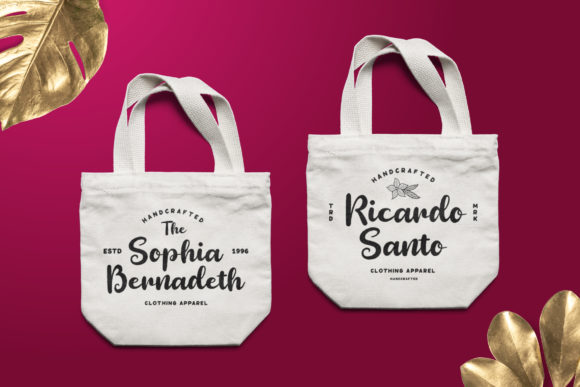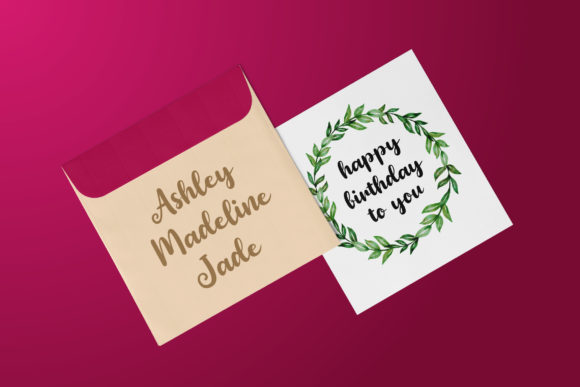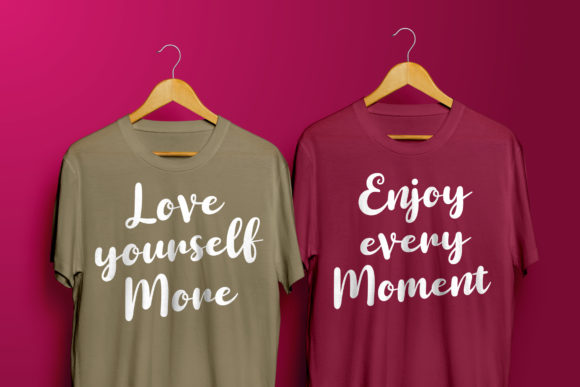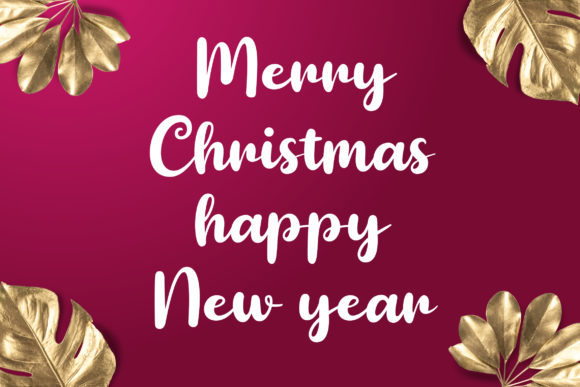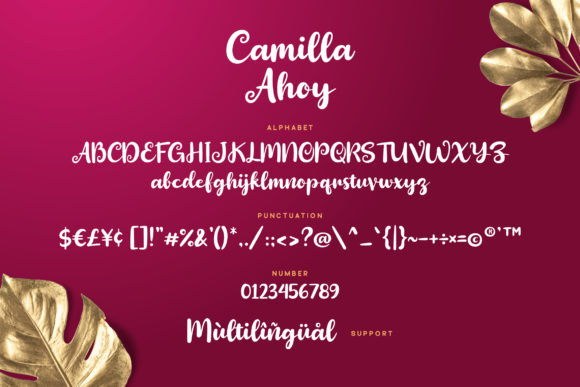
Introducing Camilla Ahoy Font: The Fun and Cool Handwritten Font You Need
Are you tired of using the same old fonts in your designs? Look no further! Camilla Ahoy is an equally fun and cool handwritten font with a unique style that’s sure to add a touch of personality to your projects. In this article, we’ll dive into the features and benefits of Camilla Ahoy Font, and explore how it can elevate your designs and crafting projects.
What is Camilla Ahoy Font?
Camilla Ahoy Font is a handwritten font designed to bring a sense of fun and playfulness to your designs. With its unique and quirky style, it’s perfect for creatives who want to add a personal touch to their work. Whether you’re a designer, crafter, or DIY enthusiast, Camilla Ahoy Font is a great addition to your font collection.
Key Features of Camilla Ahoy Font
- Handwritten style: Camilla Ahoy Font has a genuine handwritten look that’s perfect for creating personal and relatable designs.
- Unique and quirky: This font stands out from the crowd with its distinctive style that’s sure to grab attention.
- Fun and playful: Camilla Ahoy Font is designed to add a touch of whimsy and fun to your designs.
- Easy to read: Despite its playful style, Camilla Ahoy Font is easy to read and understand, making it perfect for body text and headings.
Benefits of Using Camilla Ahoy Font
So, why should you choose Camilla Ahoy Font for your designs? Here are just a few benefits:
- Adds personality to your designs: With Camilla Ahoy Font, you can add a touch of personality and whimsy to your designs, making them stand out from the crowd.
- Perfect for creative projects: Whether you’re working on a DIY project, crafting, or designing, Camilla Ahoy Font is a great choice for adding a personal touch.
- Versatile: This font can be used for a wide range of projects, from invitations and greeting cards to posters and social media graphics.
How to Use Camilla Ahoy Font
Using Camilla Ahoy Font is easy! Here are a few tips to get you started:
- Pair it with other fonts: Try pairing Camilla Ahoy Font with other fonts to create a unique and interesting contrast.
- Experiment with colors: Camilla Ahoy Font looks great in a range of colors, so don’t be afraid to experiment and find the perfect hue for your design.
- Use it for headings and titles: Camilla Ahoy Font is perfect for headings and titles, but you can also use it for body text for a more playful look.
Who is Camilla Ahoy Font for?
Camilla Ahoy Font is perfect for:
- Designers: If you’re a designer looking for a unique and playful font to add to your collection, Camilla Ahoy Font is a great choice.
- Crafters: Whether you’re into scrapbooking, card making, or other crafts, Camilla Ahoy Font is a great addition to your toolkit.
- DIY enthusiasts: If you love DIY projects and want to add a personal touch to your creations, Camilla Ahoy Font is a great choice.
In conclusion, Camilla Ahoy Font is a fun and cool handwritten font that’s perfect for designers, crafters, and DIY enthusiasts. With its unique style and easy-to-use format, it’s a great addition to any font collection. Whether you’re looking to add a touch of personality to your designs or create something truly unique, Camilla Ahoy Font is the perfect choice.